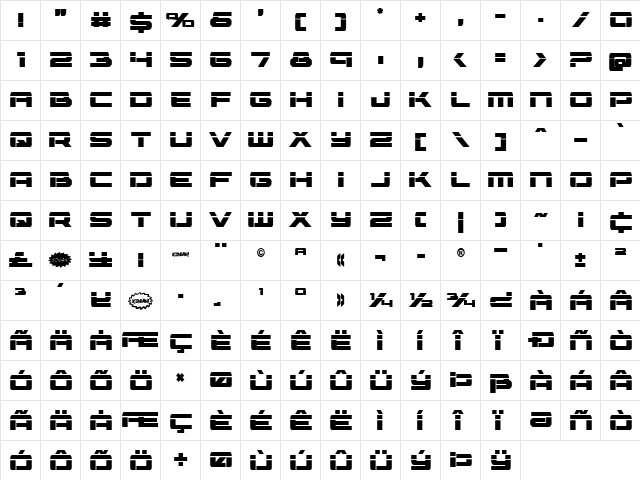
Vorpal Bold Bold
Design Context for Vorpal Bold Typeface
Vorpal Bold is a composed and adaptable typeface that performs quietly and consistently across a wide range of design contexts. Its bold stroke weight gives it real presence on the page.